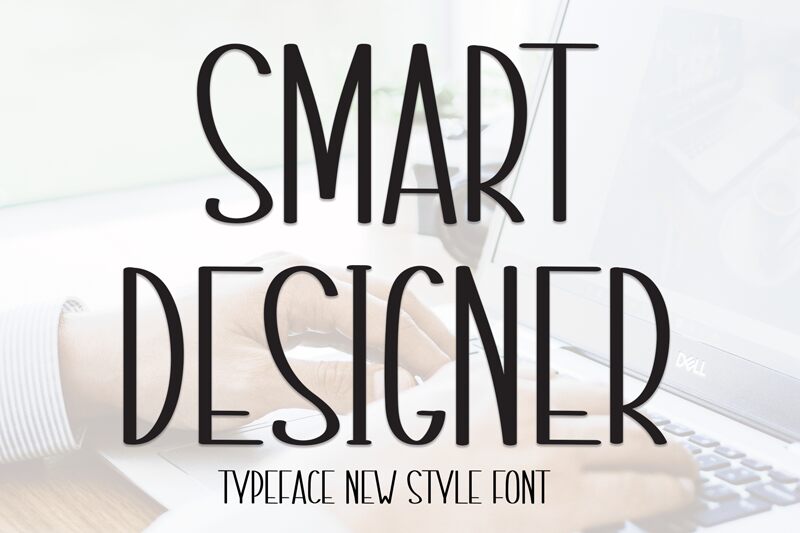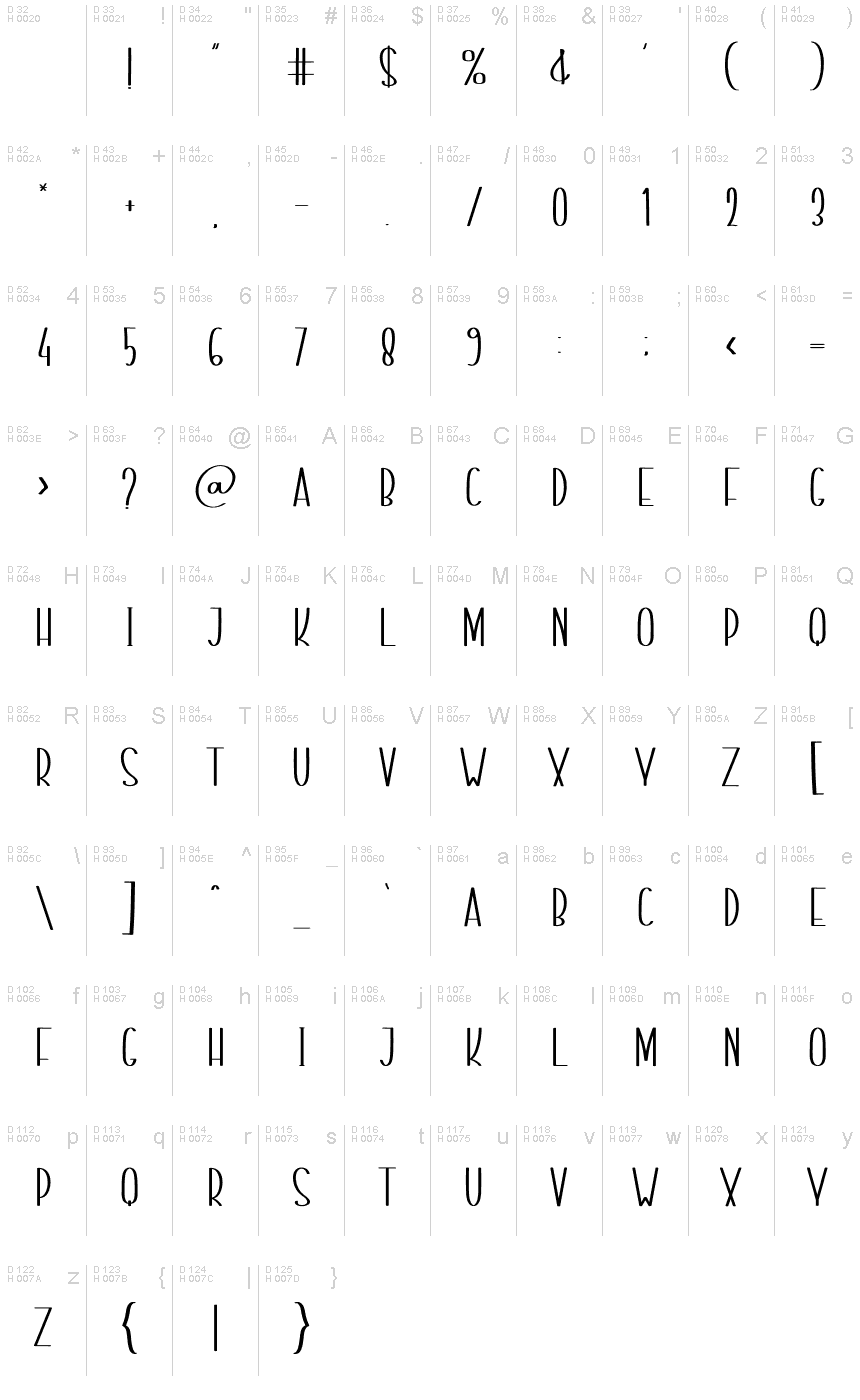
Smart Designer
Smart Designer, crafted by Scratchones, stands out as a handwritten font that boasts a unique blend of casual charm and stylish precision. With its semi-light weight and extra-condensed width, this typeface offers an aesthetic that is refreshingly modern yet effortlessly approachable.
The Smart Designer font captivates with its clear legibility and distinctive character shapes that echo the nuances of personal handwriting. This makes it an excellent choice for branding projects, invitations, and editorial designs where a touch of personality is key.
Whether you're looking to inject a sense of individuality into your creative works or aiming for a design that balances informality with sophistication, Smart Designer is versatile enough to meet the challenge. Its subtle elegance is poised to elevate any project it graces.
The Smart Designer font captivates with its clear legibility and distinctive character shapes that echo the nuances of personal handwriting. This makes it an excellent choice for branding projects, invitations, and editorial designs where a touch of personality is key.
Whether you're looking to inject a sense of individuality into your creative works or aiming for a design that balances informality with sophistication, Smart Designer is versatile enough to meet the challenge. Its subtle elegance is poised to elevate any project it graces.